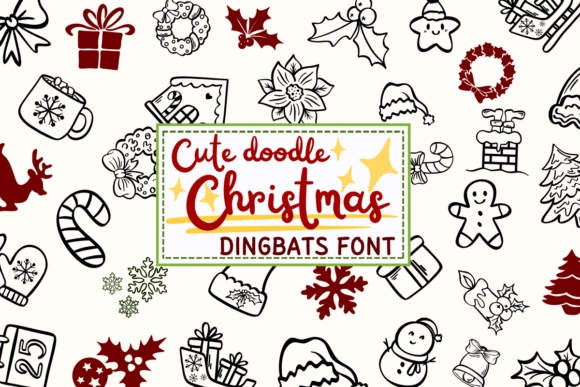
Deck the Halls with Holiday Cheer
As the holiday season approaches, you find yourself rummaging through your stash of festive decorations, wrapping paper, and gift tags, searching for that perfect touch of whimsy to make your Christmas projects stand out. But what if you could infuse your designs with a dash of hand-drawn charm without the hassle of searching for clipart or tedious graphics editing?
Enter the Cute Doodle Christmas Font, a delightful dingbat font that brings the magic of the holiday season to your fingertips. With a vast collection of hand-drawn elements like candy canes, wreaths, and stockings, this font is the ultimate go-to for designers looking to add a touch of festive flair to their projects.
Whether you’re crafting cards, creating social media posts, or designing wrapping paper, the Cute Doodle Christmas Font makes it a breeze to add a dash of holiday cheer to your designs. No need to search for clipart or spend hours editing graphics – just type and instantly bring your Christmas projects to life with this charming font.
Cute Doodle Christmas Font Key Features
- Unique Characteristics: This font features a playful, hand-drawn design with intricate doodles and festive elements, perfect for adding a touch of whimsy to Christmas-themed projects.
- Special Characters: The font includes a range of special characters, including ornaments, snowflakes, and other festive icons, which can be used to add visual interest to designs.
Cute Doodle Christmas Font Review
I recently had the chance to work with the Cute Doodle Christmas Font, and I must say, it’s a sweet addition to any holiday design project. Here are my thoughts:
- Playful and whimsical feel that’s perfect for Christmas designs
- Beautiful, intricate doodles that add a touch of handmade charm
- Easy to read and use, even in smaller font sizes
- Works well in a variety of design contexts, from cards to social media posts
- Some of the doodles may be too small or detailed for larger font sizes
- Not ideal for formal or professional designs (it’s a bit too playful)
- No bold or italic variations available (can make it tricky to use in certain situations)
Overall, I think the Cute Doodle Christmas Font is a great choice for anyone looking to add a touch of holiday cheer to their designs. It’s fun, easy to use, and adds a beautiful handmade feel to any project. Just be mindful of its limitations and use it in contexts where it will shine.
The Cute Doodle Christmas Font is perfect for creating festive holiday graphics, social media posts, and printables. You can use it to create:
– Christmas card designs
– Holiday invitations
– Social media posts
– Printables and worksheets